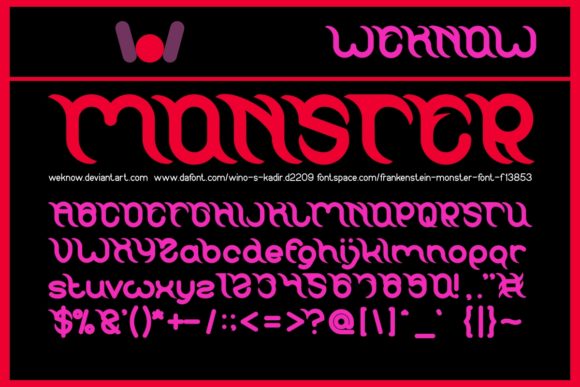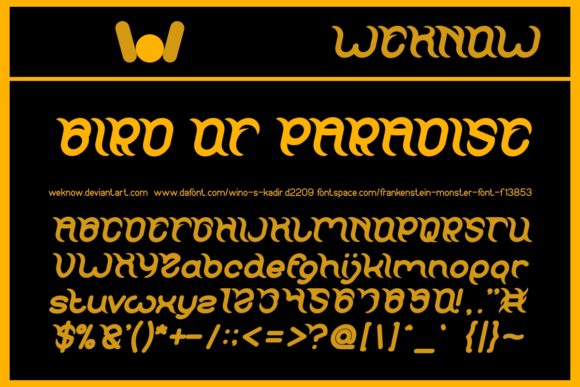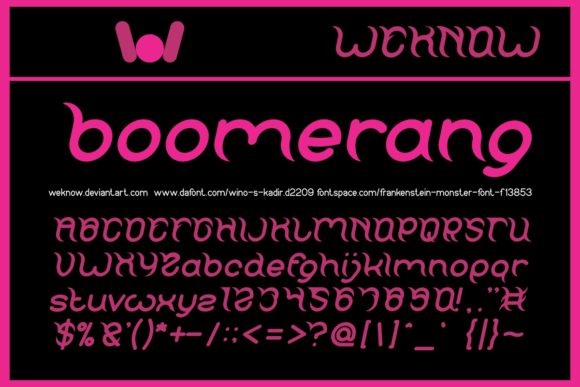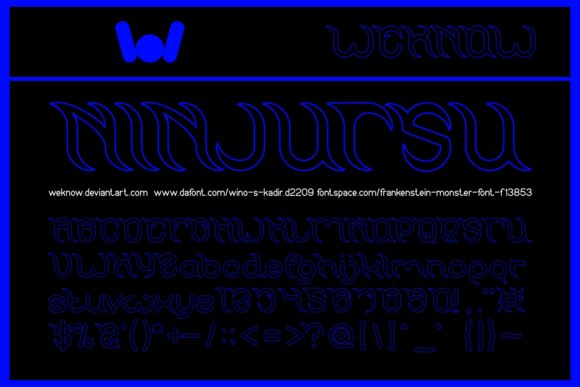
The Monster Mash: Bringing Your Designs to Life with Frankenstein Font
I still remember the night I was working on a project for a client who wanted a bold, eye-catching font to match their brand’s quirky personality. I had tried countless fonts, but none seemed quite right. That’s when I stumbled upon the Frankenstein Monster font. It was love at first sight! ✨ The unique, eclectic design instantly captured the essence of my client’s brand, and I knew I had found the perfect fit.
An Honest Review: What I Love (and What to Watch Out For)
- ✅ Unique and quirky design that’s sure to turn heads
- ✨ Perfect for display text, titles, and headings
- ✅ Highly legible, even in larger blocks of text
- 💥 Great for creating bold, eye-catching graphics and posters
A Few Quirks to Keep in Mind
- 🤔 May not be the best choice for body text or smaller font sizes
- ⚠️ Some characters may appear a bit distorted or irregular
The Story Behind Frankenstein Font
Frankenstein Font was inspired by the classic Mary Shelley novel and the iconic monster that has become a cultural phenomenon. The font’s designer wanted to capture the essence of the monster’s quirky, eclectic personality in a unique and bold font. The result is a font that’s perfect for designers, crafters, and creative hobbyists who want to add a touch of playfulness and experimentation to their designs.
| Font Name | Frankenstein Font |
| Author | weknow |
Q: Is Frankenstein Font suitable for body text?
A: While Frankenstein Font is highly legible, it’s not the best choice for body text or smaller font sizes. It’s best used for display text, titles, and headings.